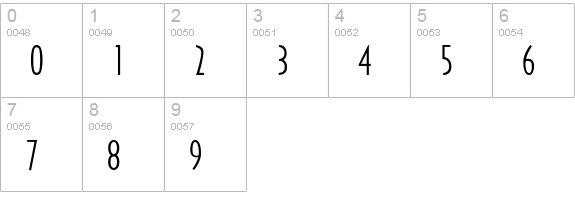
SandyhillConden Font Details
SandyhillConden is a modern and stylish font that will bring a touch of elegance to any design project. This versatile font is perfect for creating eye-catching headlines, logos, and branding materials. With its condensed and sleek letterforms, SandyhillConden exudes a sense of sophistication and professionalism. What sets SandyhillConden apart is that it is not only visually stunning, but also free! That's right, you can download this amazing font for absolutely no cost at FontsMarket.com. We believe that great design should be accessible to everyone, and that's why we are delighted to offer SandyhillConden as a freely available resource. With its clean and well-balanced design, SandyhillConden is incredibly legible, making it suitable for a wide range of applications. Whether you're designing a website, a magazine layout, or even a wedding invitation, this font will add a touch of class and elegance to your project. The characters in SandyhillConden are meticulously crafted, with each letter flowing seamlessly into the next, creating a harmonious and visually pleasing composition. The font also includes a variety of alternate characters and ligatures, allowing you to customize your design and add your own personal touch. So why wait? Download SandyhillConden today and let your creativity soar. Whether you're a professional designer or an enthusiast, this font will elevate your designs to new heights. Remember, SandyhillConden is free and available for download at FontsMarket.com, so don't miss out on this fantastic opportunity to enhance your creative endeavors.